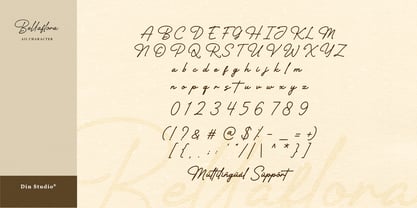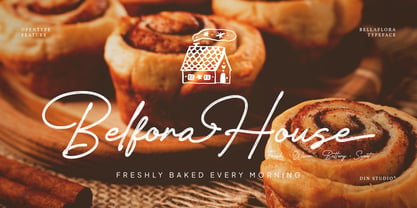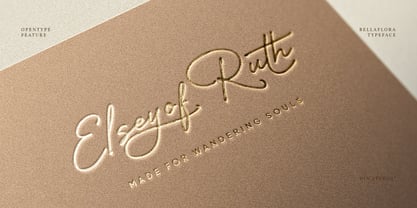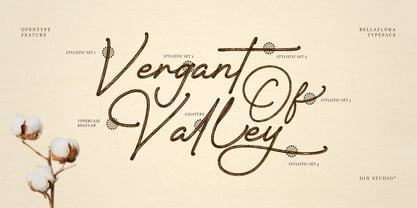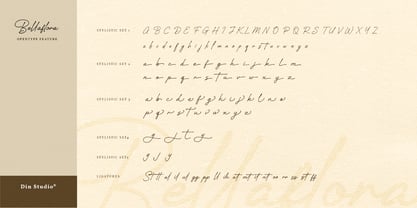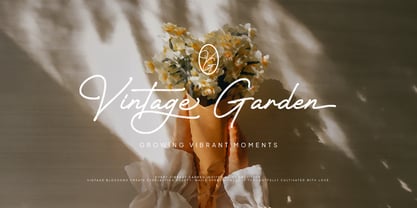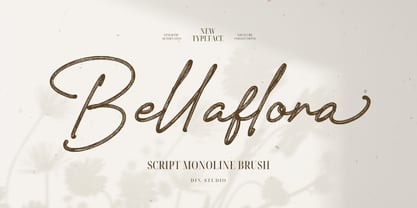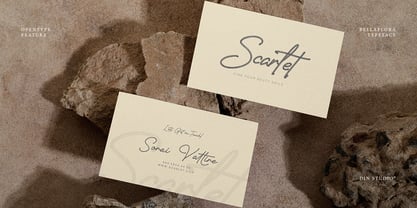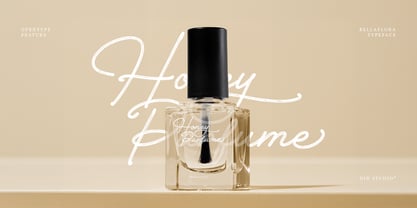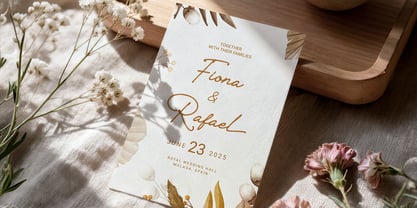
Bellaflora
The Bellaflora Font Family was designed by Donis Miftahudin and published by Din Studio. Bellaflora contains 1 styles. More about this family
Bellaflora is a graceful monoline brush. Inspired by contemporary calligraphy and handcrafted brush lettering, Bellaflora embraces a clean monoline structure that gives it a timeless and versatile character. The connected letters create seamless word compositions, while the slim, not-too-thick strokes offer an airy and sophisticated aesthetic. Its low contrast produces a soft and balanced visual rhythm, making the font ideal for projects that require elegance without overwhelming decorative details. In addition, enjoy the features here.
Features:
• Ligatures
• Stylistic Sets
• Multilingual Supports
• PUA Encoded
• Numerals and Punctuations
Bellaflora fits in invitations, logos, quotes, name cards, branding, posters, and many more designs. Find out more ways to use this font by taking a look at the font preview.